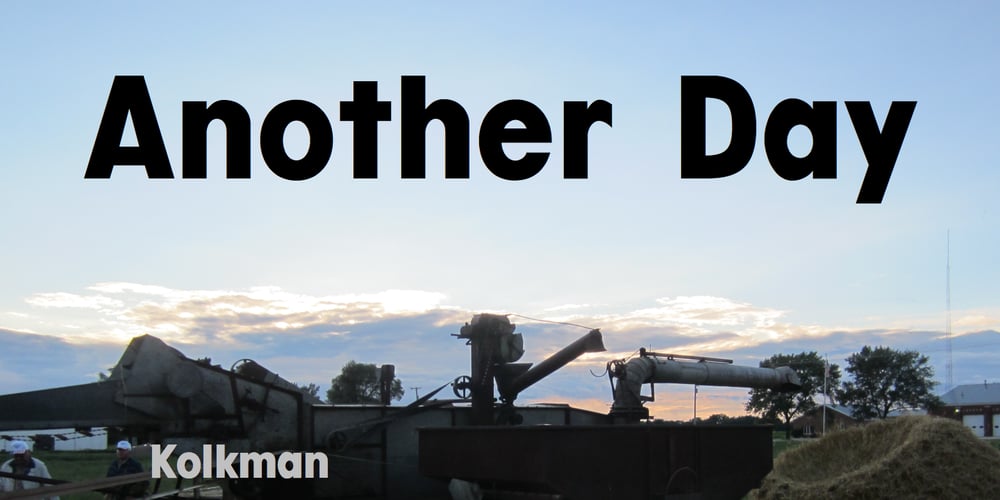
Kolkman
Kolkman font
Kolkman Font Family was designed by Robert Schenk and published by Ingrimayne Type. Kolkman contains 3 styles and family package options. Kolkman is a nondescript, bold, sans-serif typeface. In addition to a standard version, there is a version with shattered letters and another with striped or grayed letters. The shattered and striped versions can be layered on the regular version to get letters with two colors.